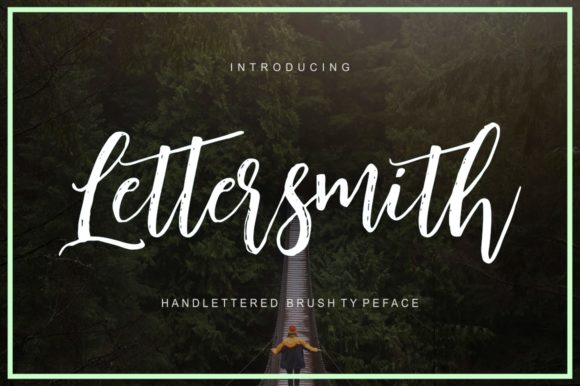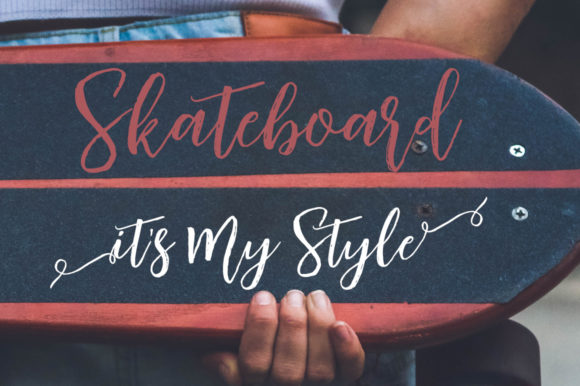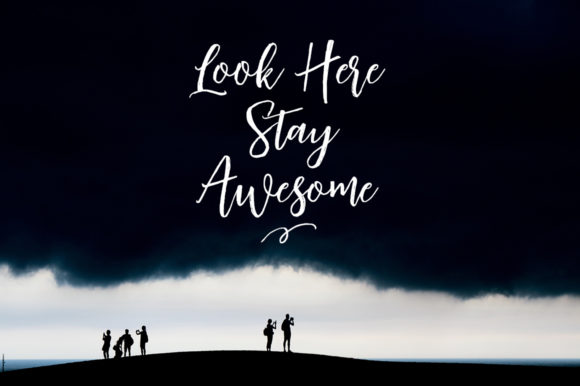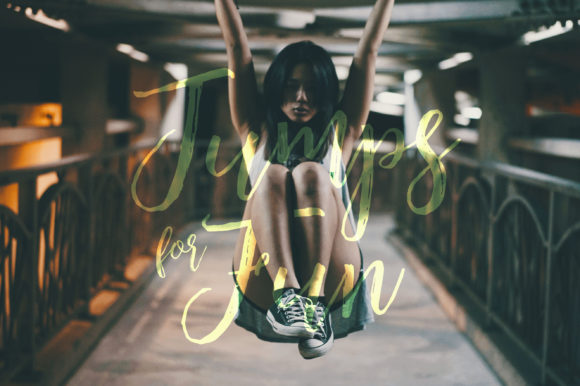
Lettersmith Font
About Lettersmith Font
The LetterSmit is a neat handwriting font with personal charm. With its dry scratches and quick signature style, the LetterSmith is perfect for branding projects, home designs, product packaging – or just as a stylish overlay of text to any background image.